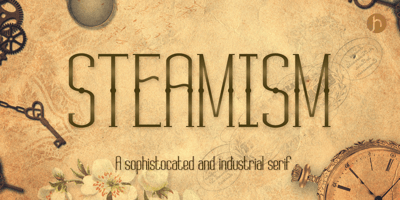
Steamism Font Family was designed by Joe Hewitt and published by Joe Hewitt Design. Steamism contains 1 styles and family package options. Steamism was created out of a keen interest in the Steampunk genre. The typeface is refined and elegant with a tip of the hat to the strong and straight vertical lines of rising Industry! Although designed with steampunk aesthetics in mind, a font of this nature lends itself well to many ventures. From building and vehicle signage to book covers, invites to glamourous events and bodies of text, Steamism is the font for you!